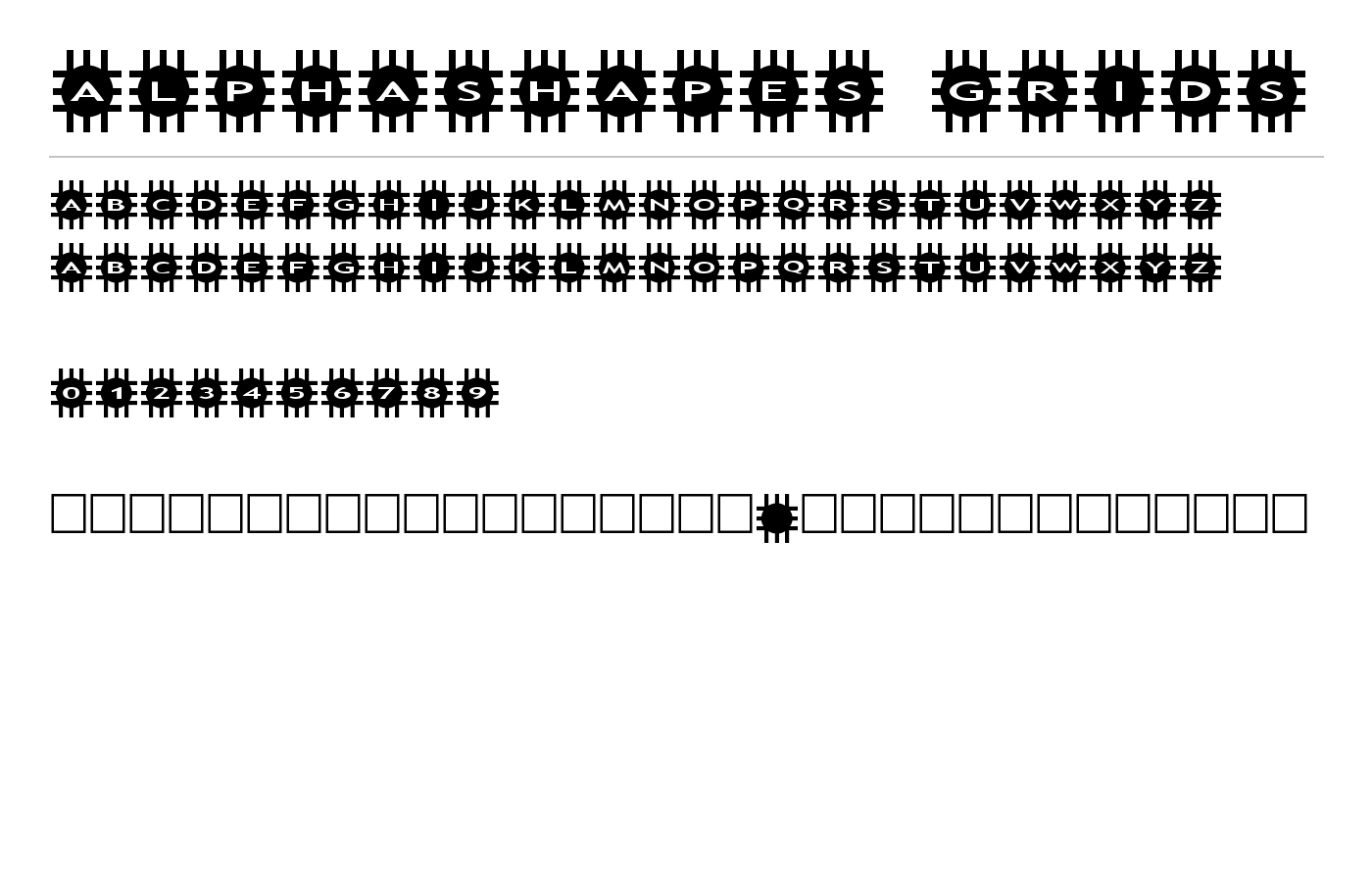
AlphaShapes grids is a bold, geometric display font featuring blocky uppercase letters set within circular shapes intersected by grid-like lines. Its strong, industrial look with high contrast and uniform spacing makes it ideal for futuristic or tech-inspired branding, posters, and headlines that need a distinctive, modern edge. This font works best in creative projects focused on a high-impact, structured aesthetic rather than body text or subtle designs.
AlphaShapes grids Font
About AlphaShapes grids Font